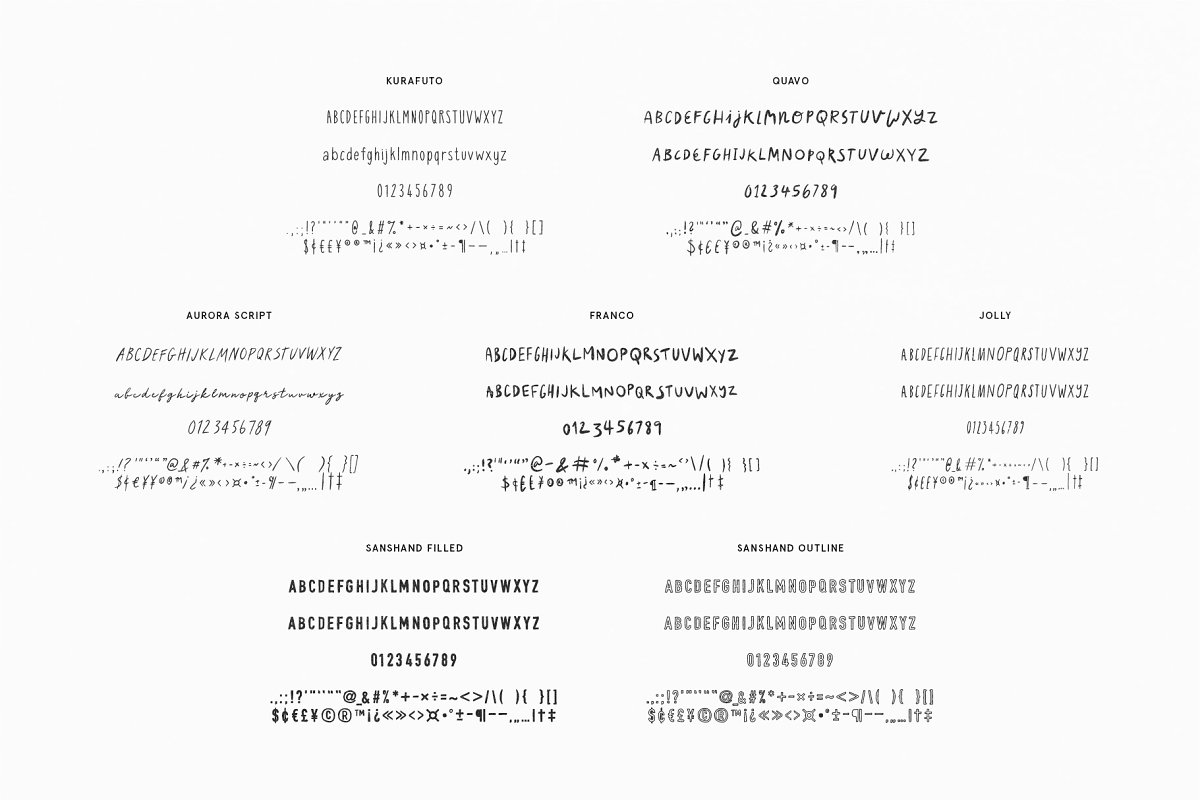
About the Handwritten Graphics Bundle Font
🙌️ ❤️You might also like our Handcrafted Americana Bundle here ❤️🙌️https://crmrkt, com/qa8OgW70% off! $70 worth of fonts for $20!Introducing our new product, the Handwritten Font Bundle – a set of 7 handwritten fonts (and hand drawn elements) to add a rustic, natural and authentic look and feel to your branding and design work, Language Support: Afrikaans, Albanian, Catalan, Danish, Dutch, English, French, German, Italian Norwegian, Portuguese, Spanish, Swedish and Zulu